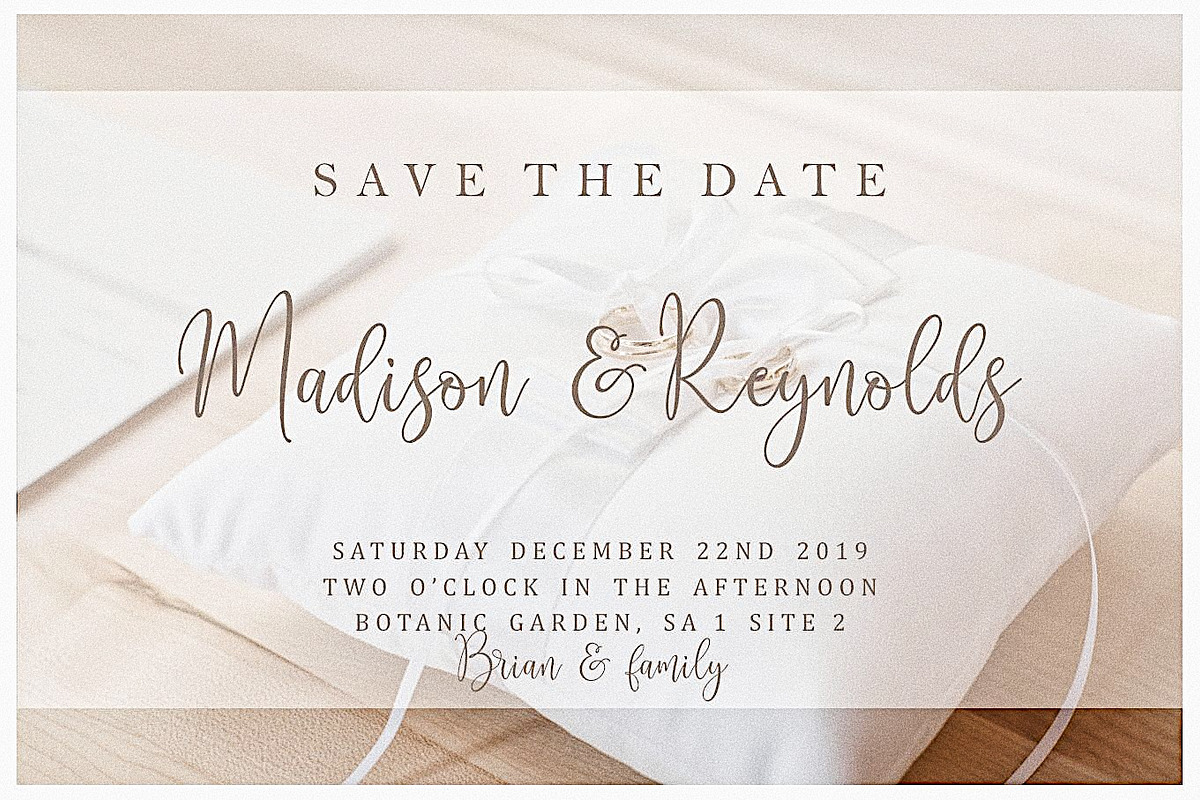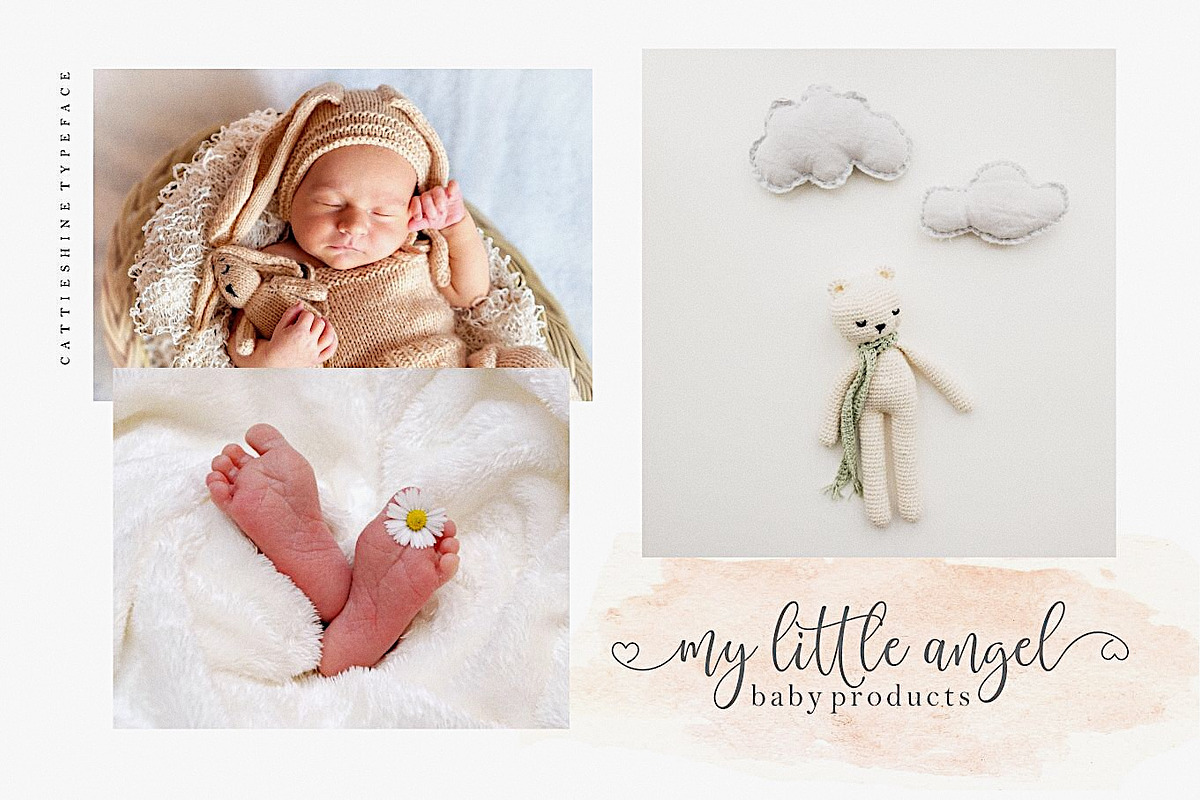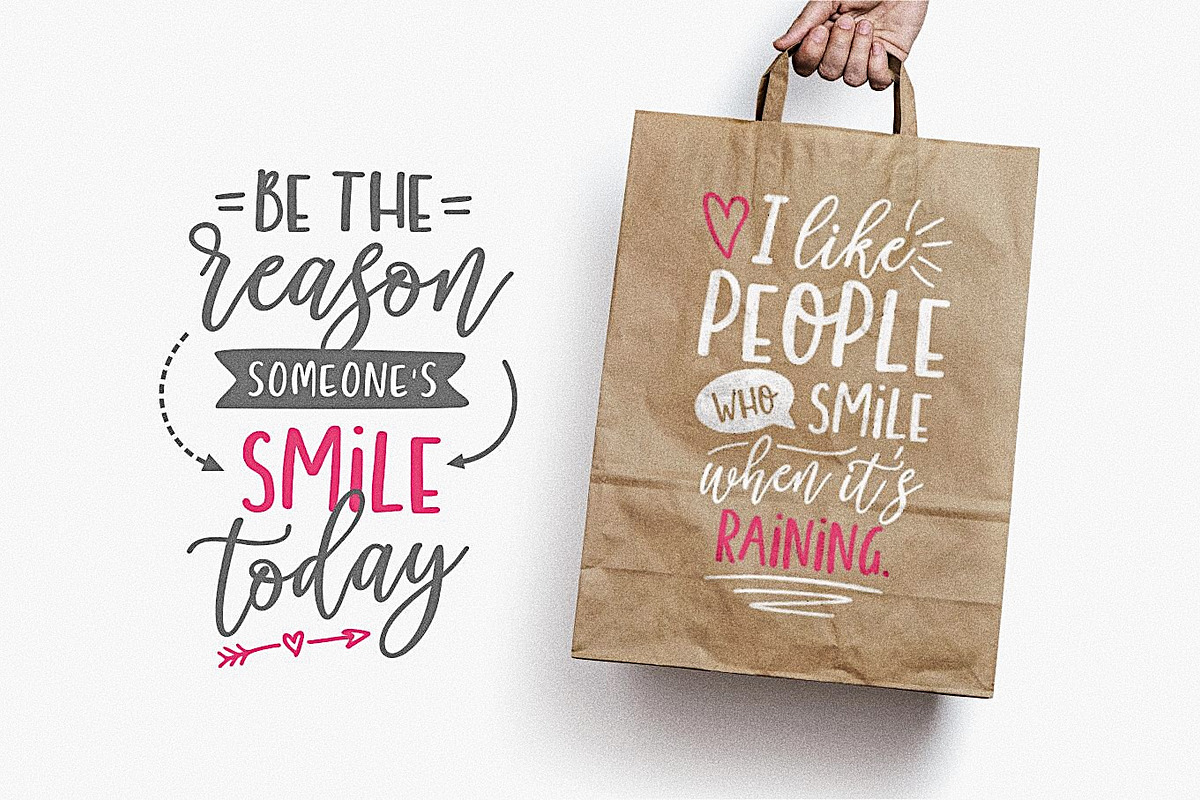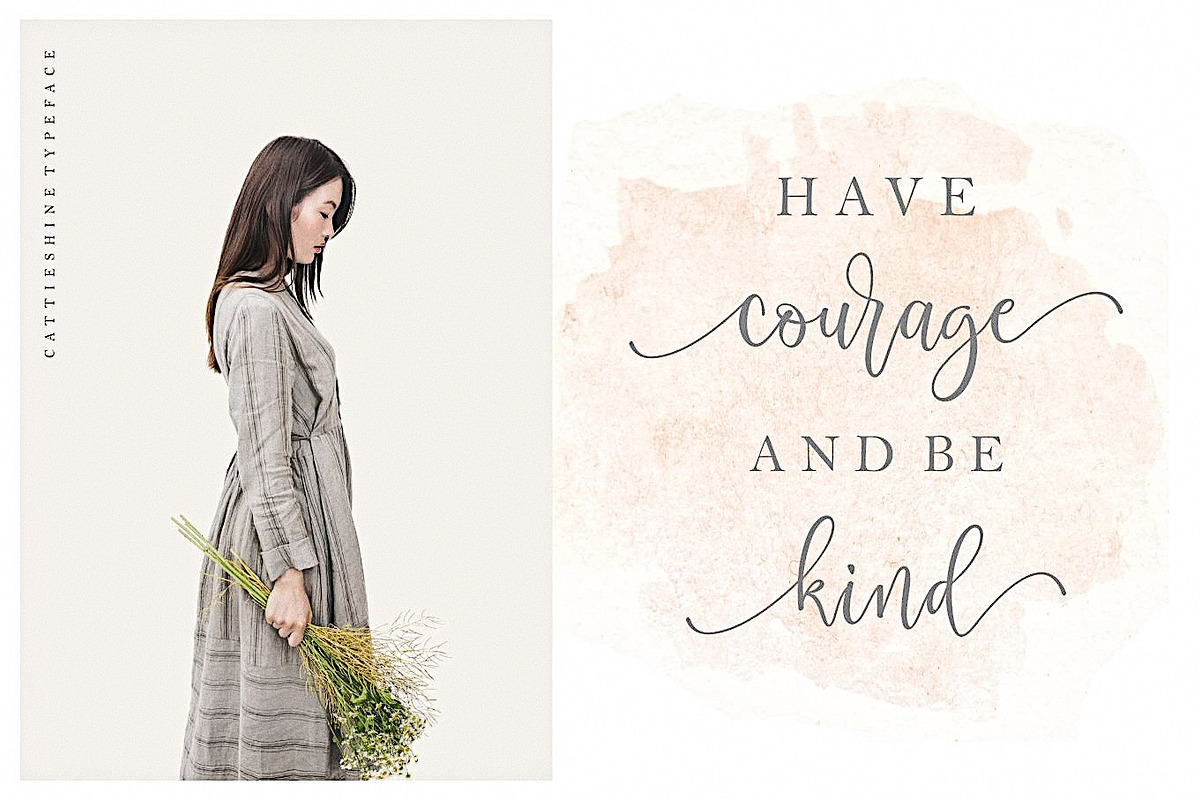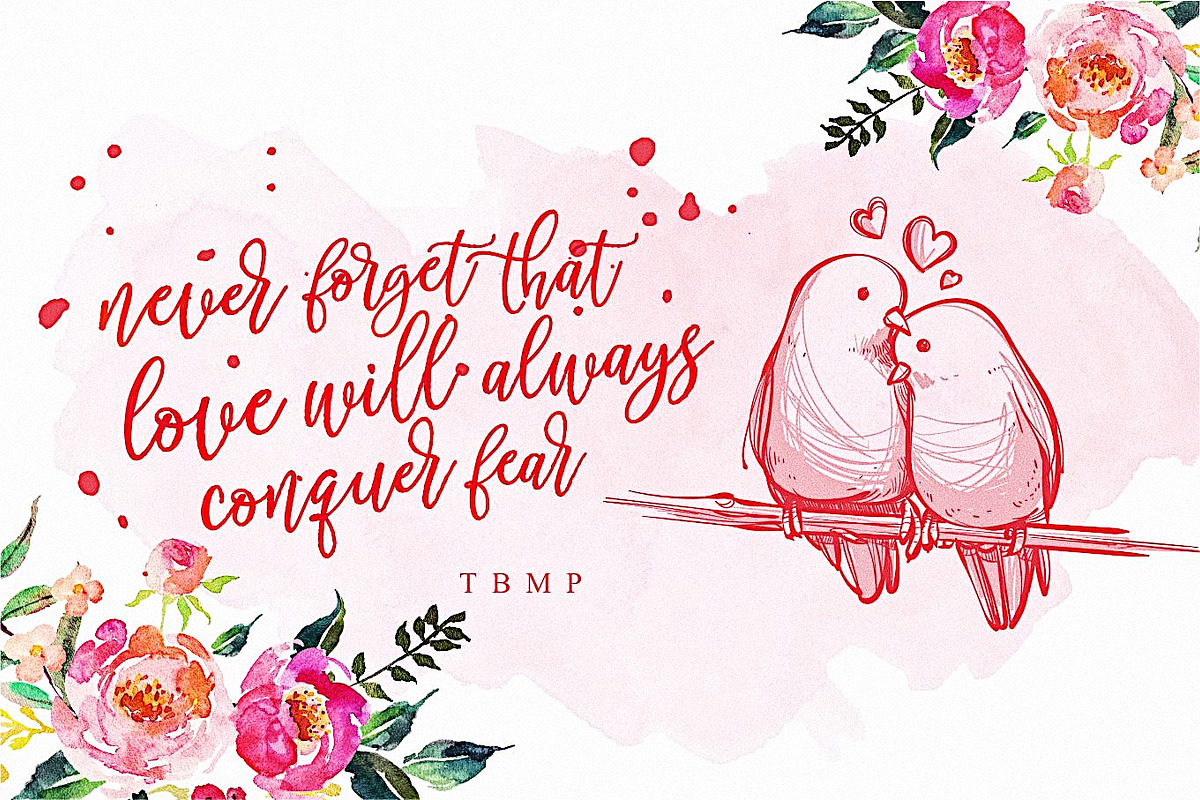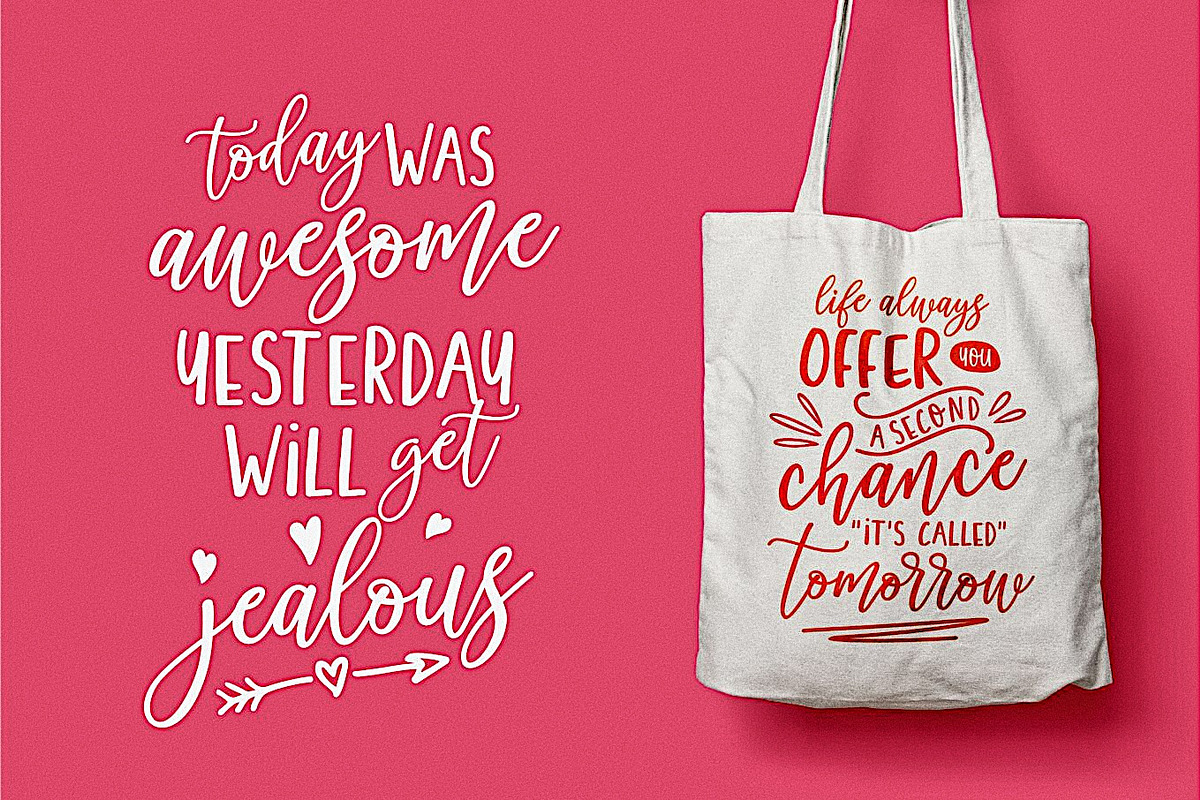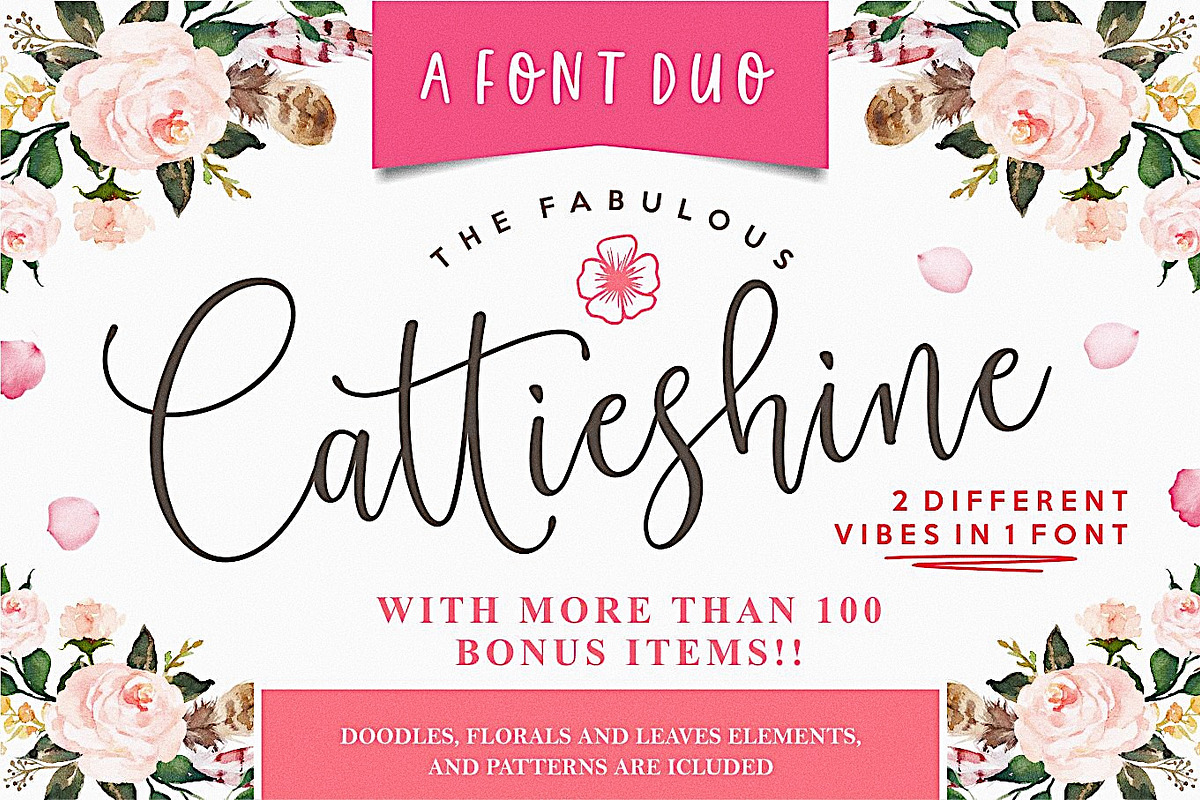
Introducing our new font Cattieshine a font duo that can make tons of design style. The Cattieshine Alt. combines with Cattieshine Sans will make perfect design for packaging, quotes, branding, gift cards, posters, even fun logos. Another Cattieshine has different emotion, it's sweet and lovely. it would be perfect for feminine, elegant, and luxurious logos, branding, wedding invites and cards.
We've been working so hard to make this font as pretty as it could be, with full set of elegant uppercase and lowercase letters, multilingual symbols, numerals, punctuation and ligatures.
Following international symbols support: ÀÁÂÃÄÅĄÇĆÈÉÊËĘÌÍÎÏÐÑŃÒÓÔÕÖØÙÚÛÜŚŠŸÝŹŻŽàáâãäåçèéêëìíîïðñòóôõöøùúûüýÿćłńśšźżž
The font has smooth texture, so would be perfect for all types of printing techniques and you can do embroidery, laser cut, gold foil etc.